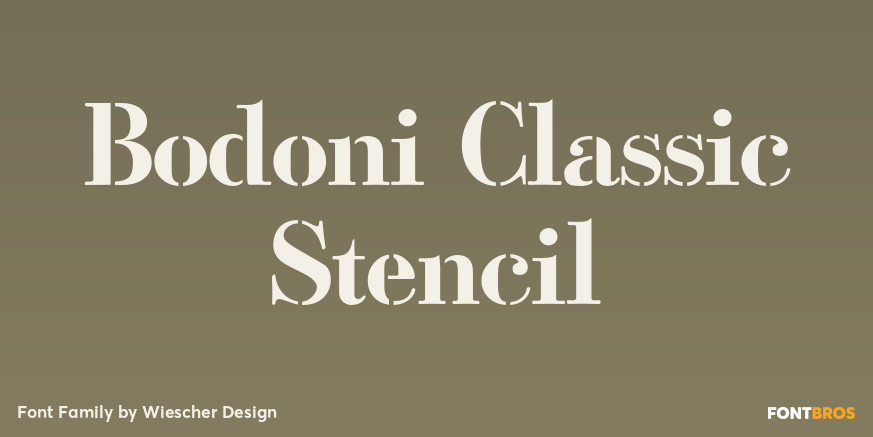
Bodoni Classic Stencil
About Bodoni Classic Stencil
Bodoni Classic Stencil is another of my personal additions to the Bodoni Classic Family that Giambattista would have never made. In his days people had enough skill and the neccessary time to put beautiful handlettering on parcels and cases. No need for…